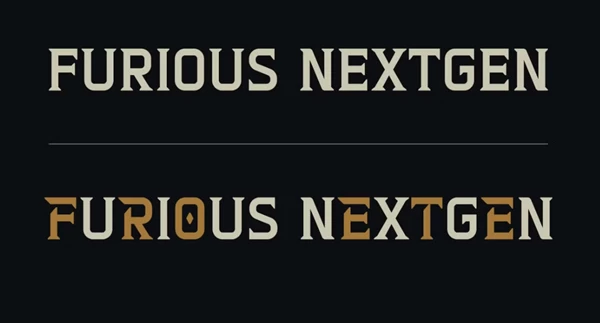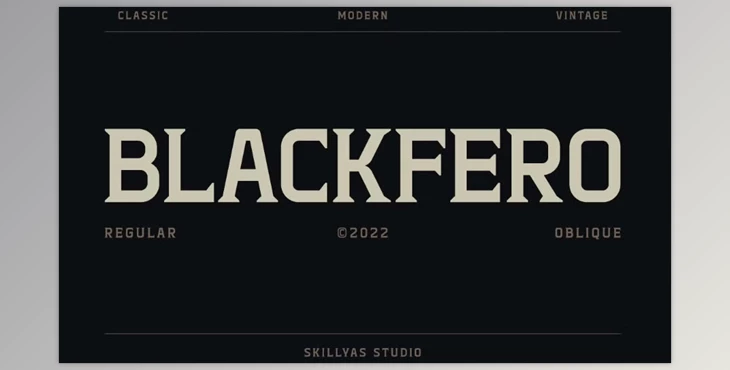
Blackfero Vintage Serif Font Creative Market:
Blackfero Vintage Serif Font is a masculine, Greek art-inspired typeface that blends vintage aesthetics with modern minimalism. Featuring 377 glyphs, it includes uppercase and lowercase letters, alternate characters, and special ligatures. Blackfero is ideal for diverse projects like branding, logos, sports designs, product packaging, vintage labels, and more.
"Blackfero Vintage Serif Font" Sample:
- Multilingual Support: Covers 20+ languages, including English, French, German, Spanish, and more.